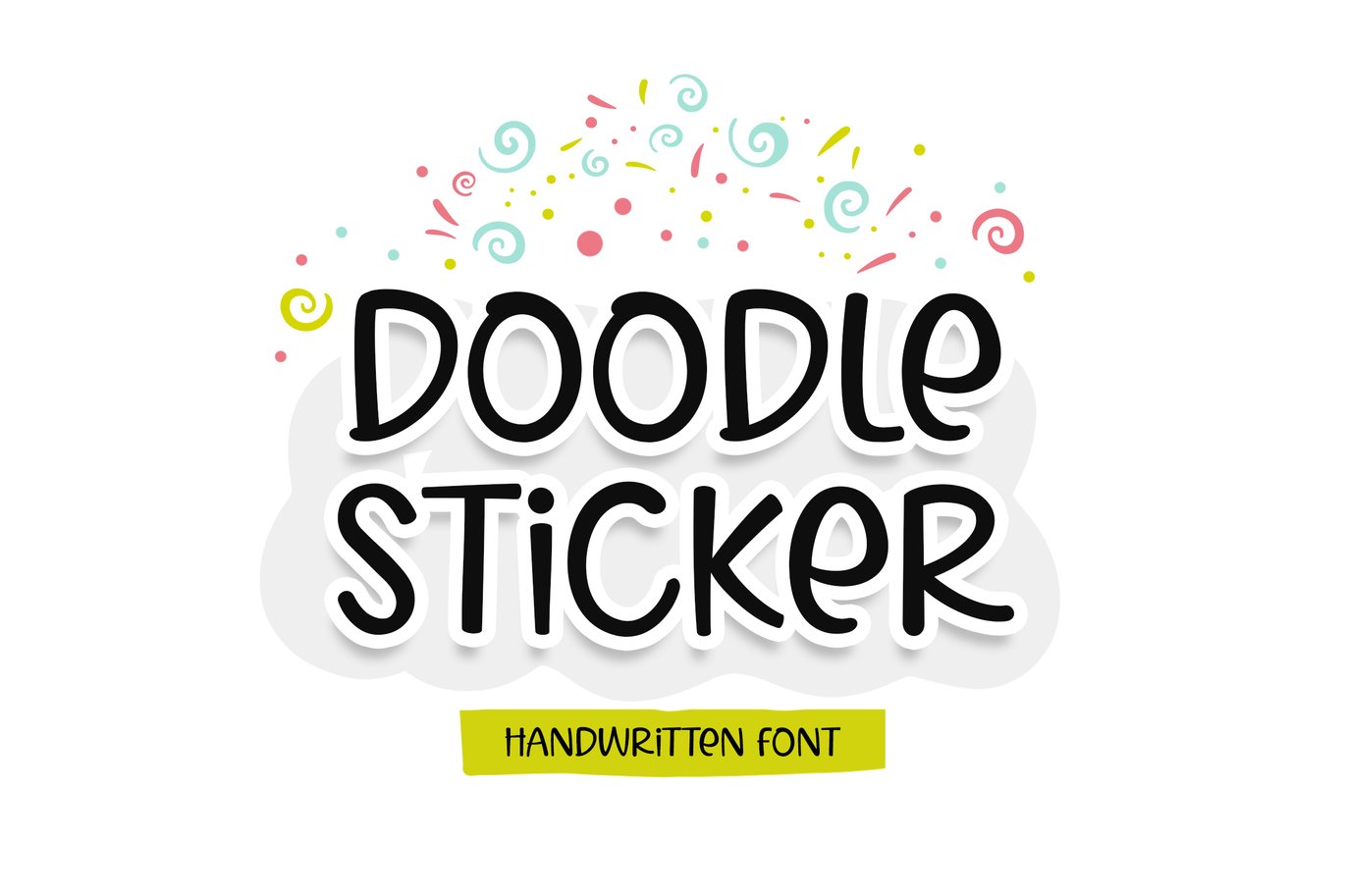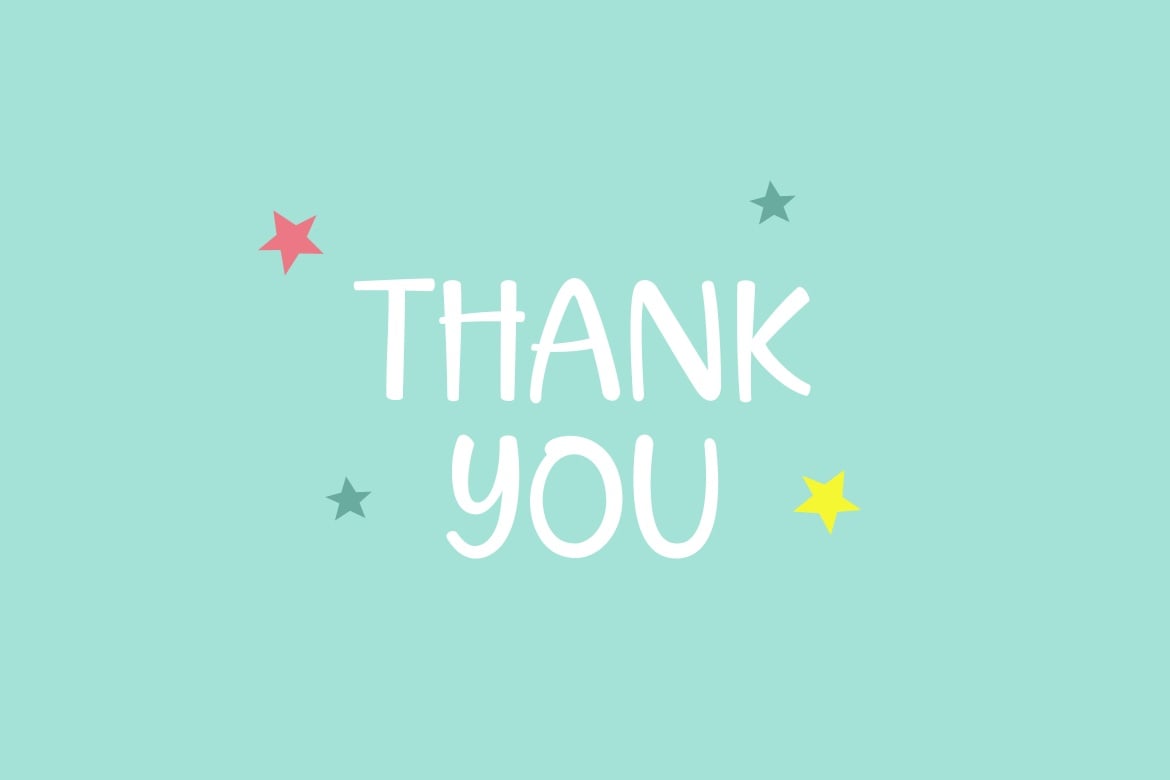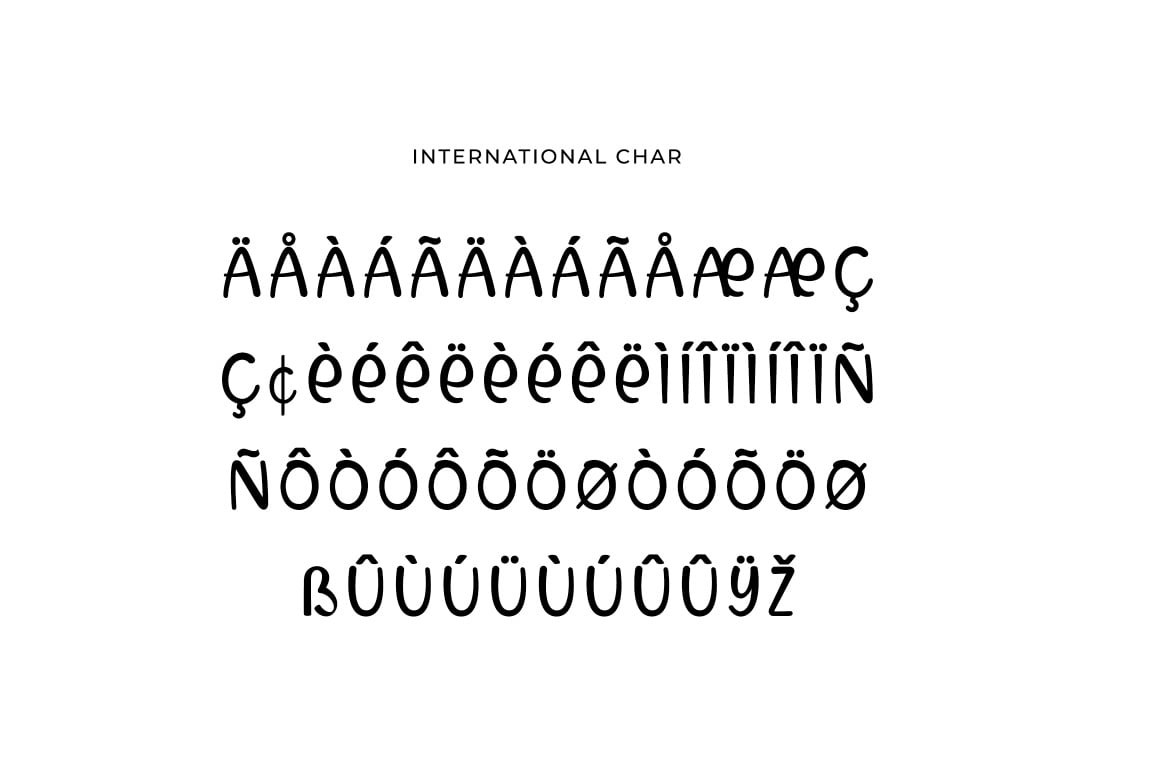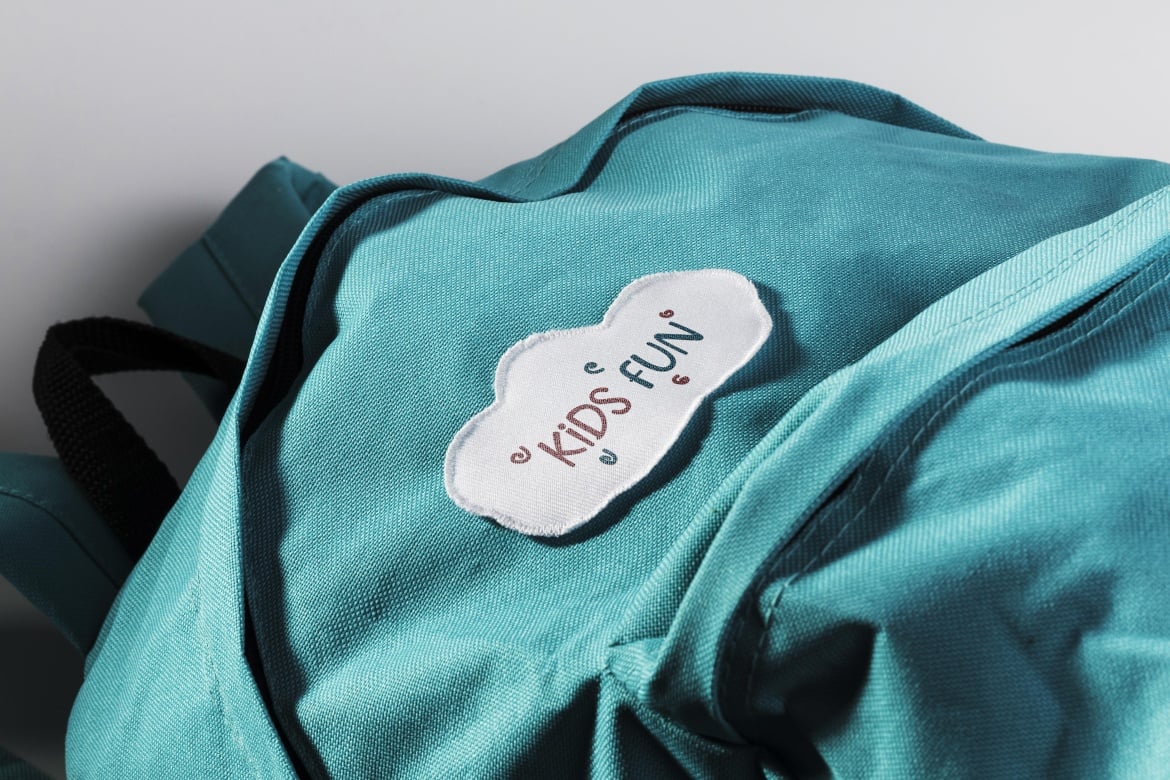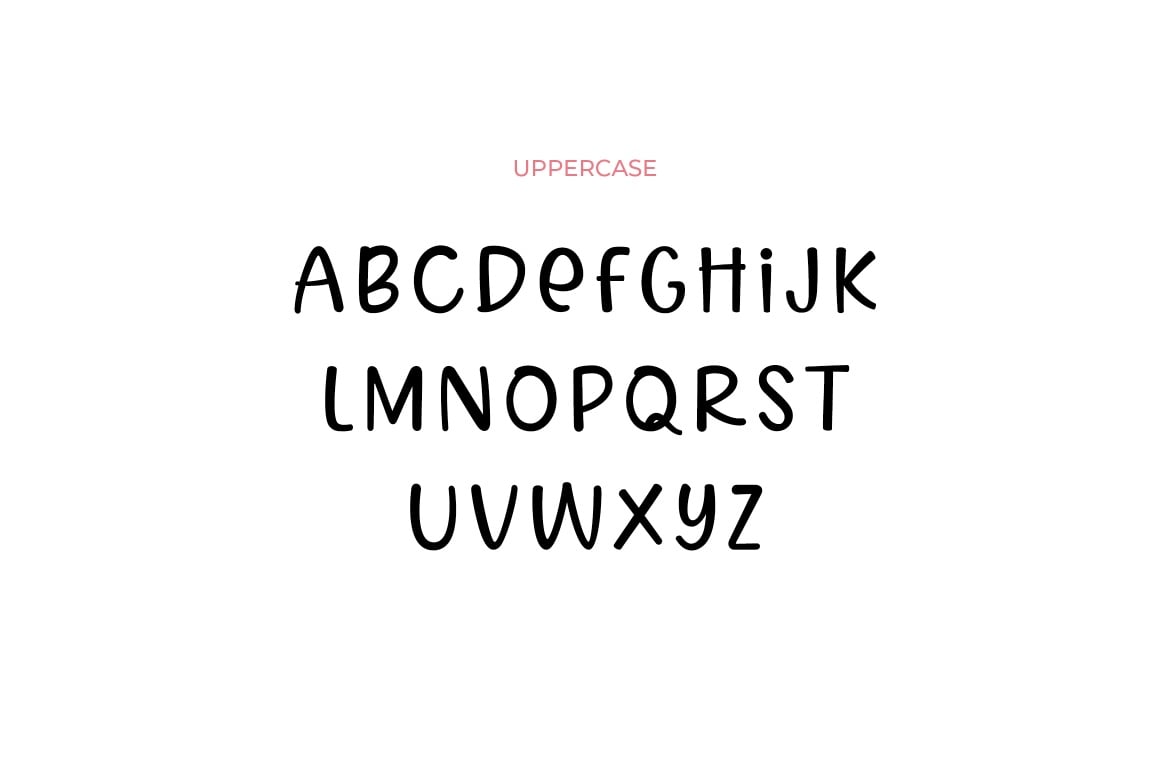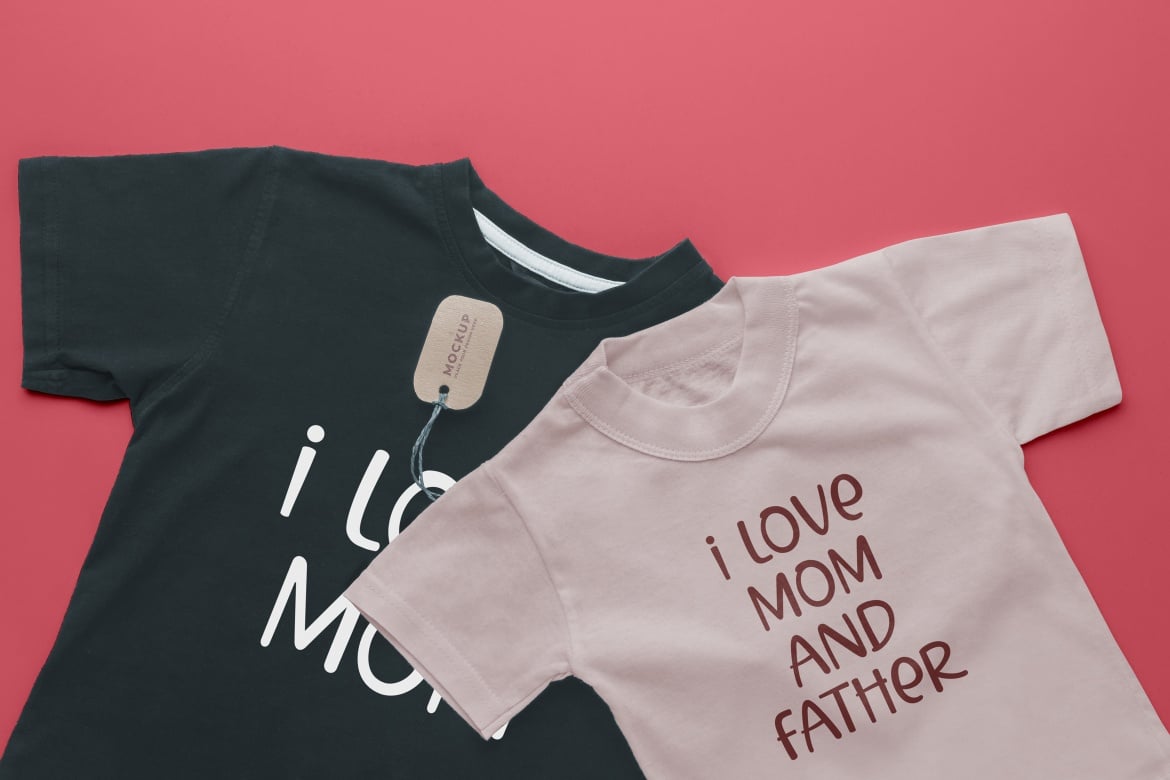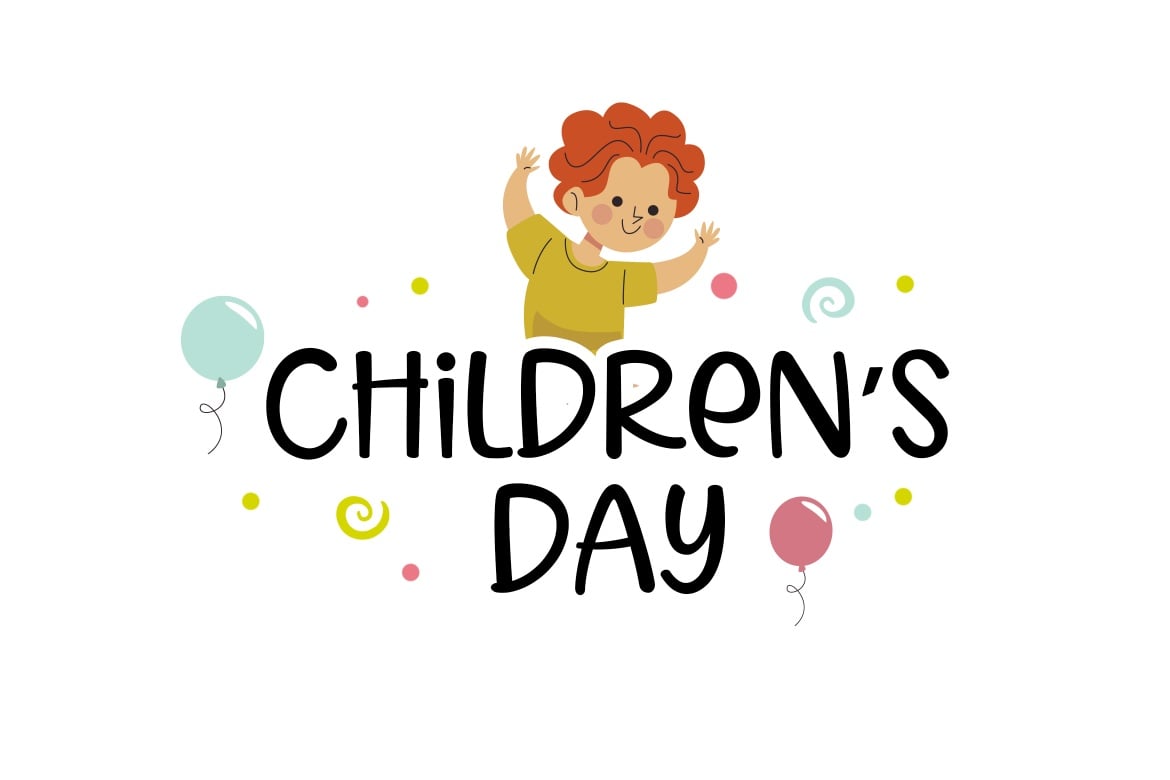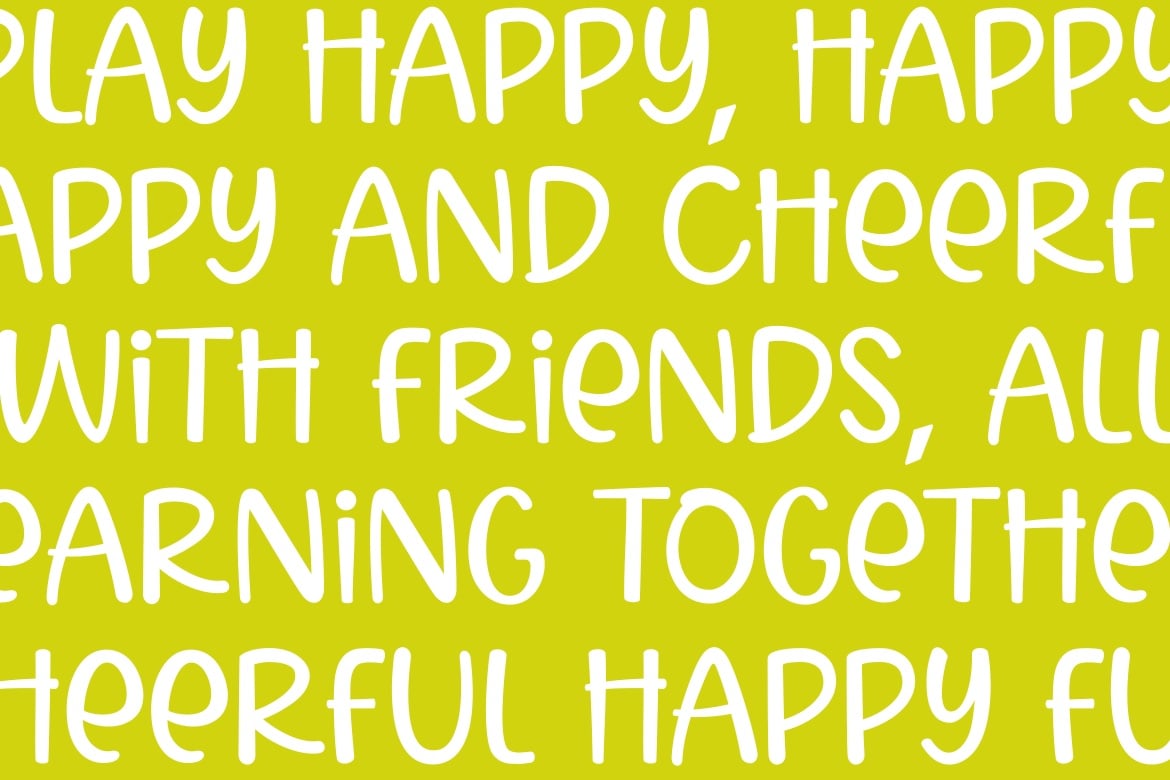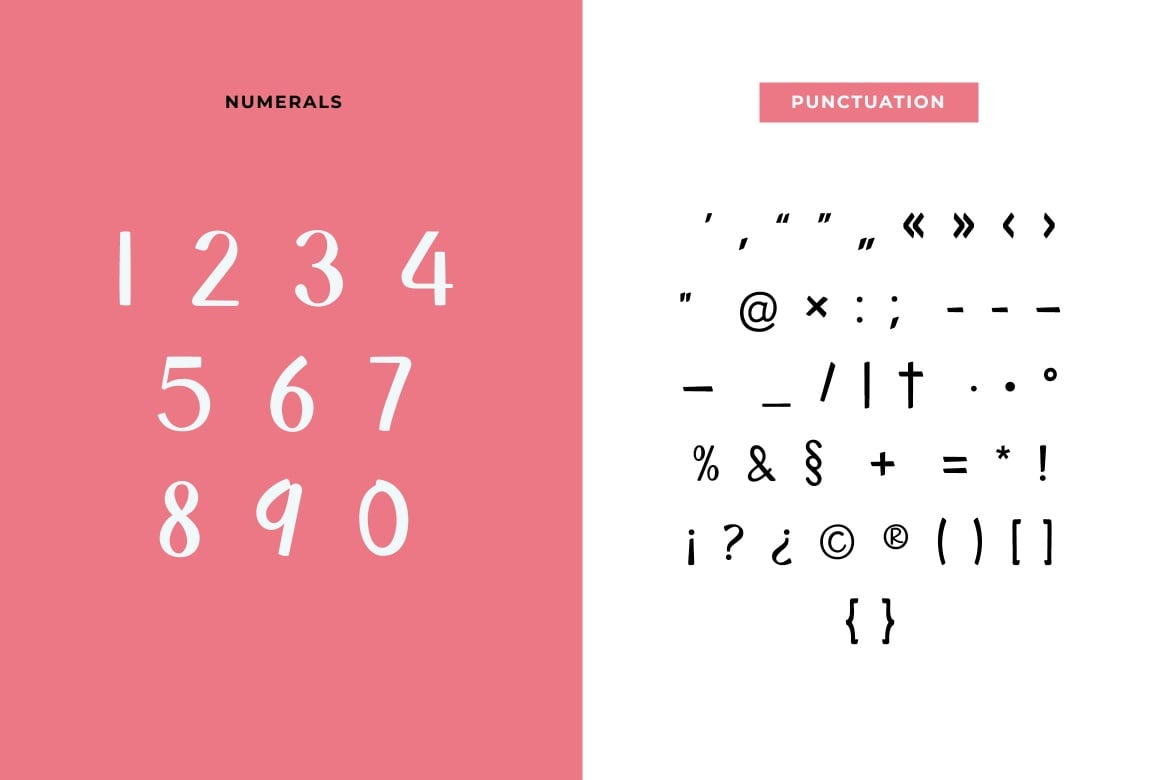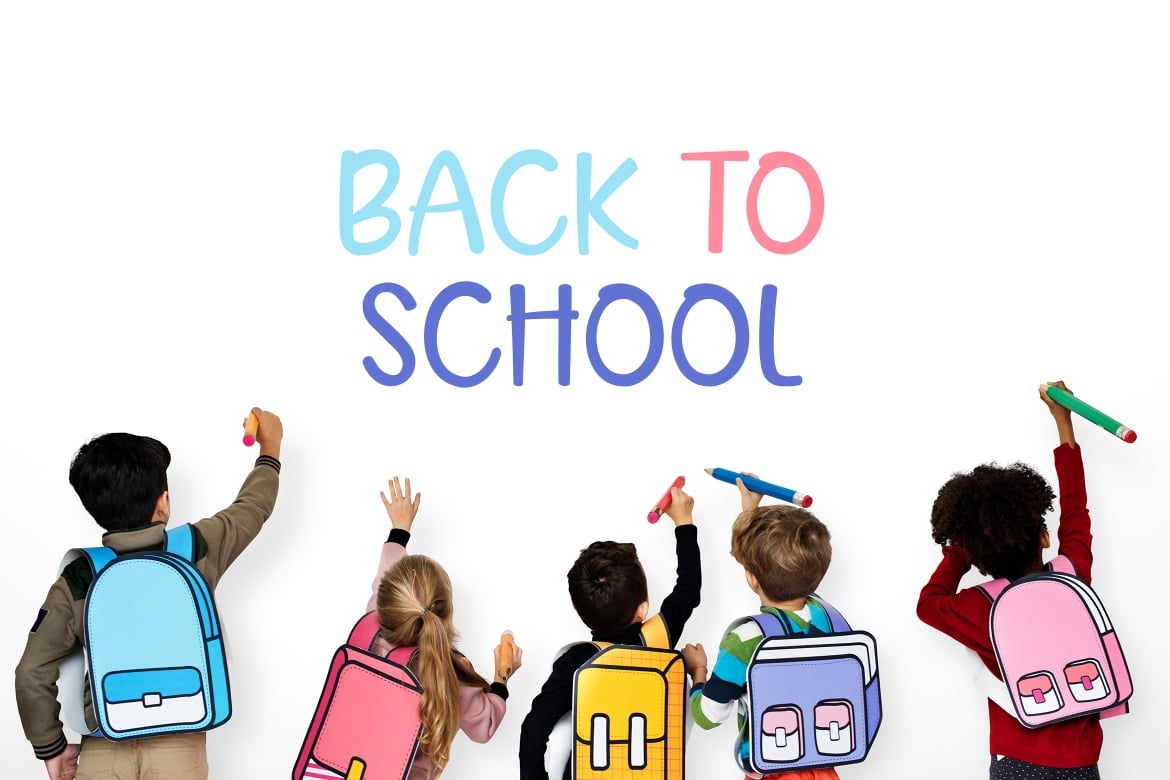
Doodle Sticker Playful Sans Serif Font
Introducing our new product the name is Doodle Sticker Playful Sans Serif Font. Doodle Sticker Playful Sans Serif Font that feels beautiful classy, elegant, and modern. This font is perfectly suited for a wide variety of projects, such as signature, stationery, logo, wedding, typography quotes, magazine or book cover, website header, clothing, branding, packaging design, and more. Also for fashion-related branding or editorial design and displays both masculine and feminine qualities.